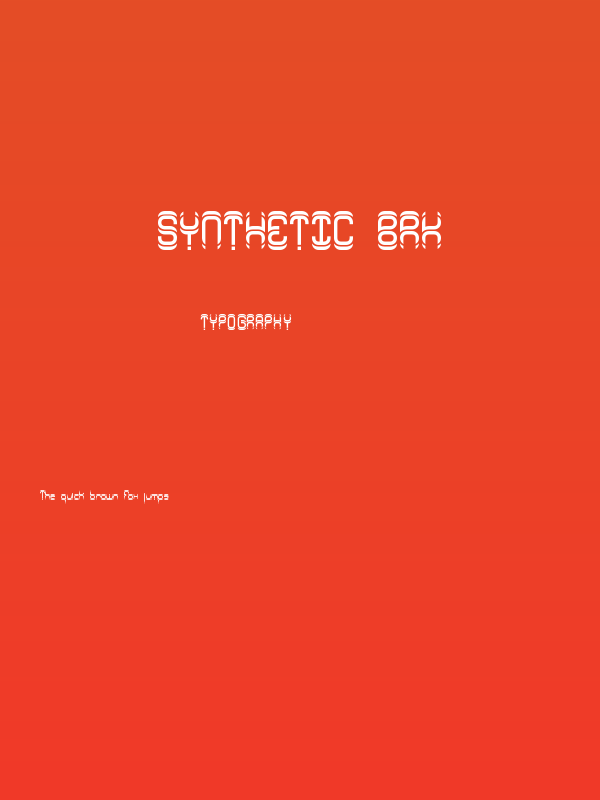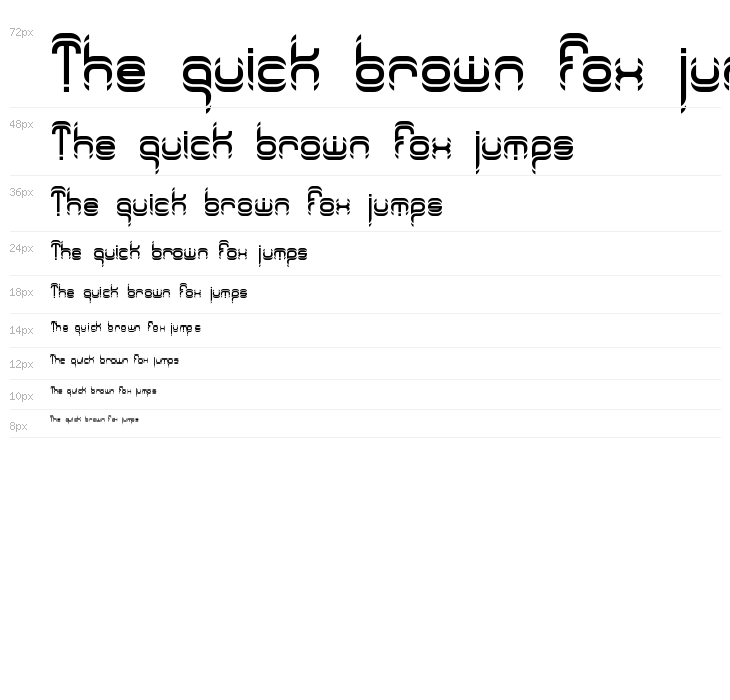
Synthetic BRK Font
Synthetic BRK Description
This font features a futuristic and geometric design with a distinctively bold and structured appearance. The characters are composed of thick, parallel lines that create a sense of depth and dimension. The uppercase letters are particularly striking, with a uniform height and width that give them a block-like quality. The lowercase letters maintain the same geometric style, offering a cohesive look across the typeface. Numbers and special characters are designed with the same attention to detail, ensuring consistency throughout. The overall aesthetic is modern and tech-inspired, making it suitable for projects that require a bold and innovative visual impact.
| Proposed Projects | Ideal for technology branding, sci-fi posters, video game titles, and modern digital interfaces. |